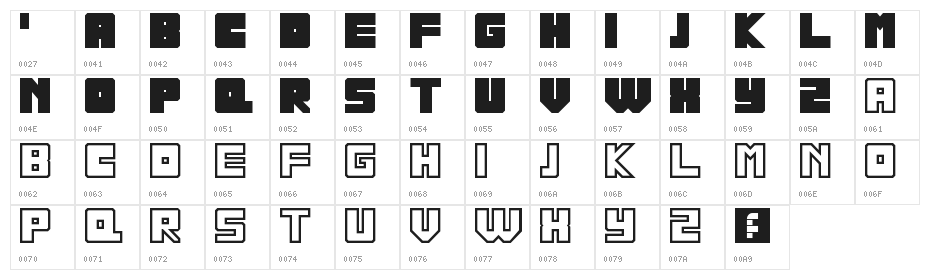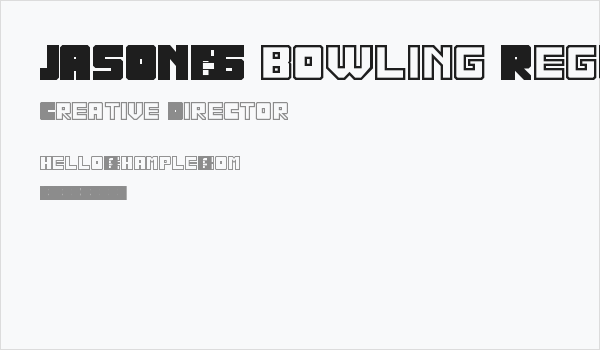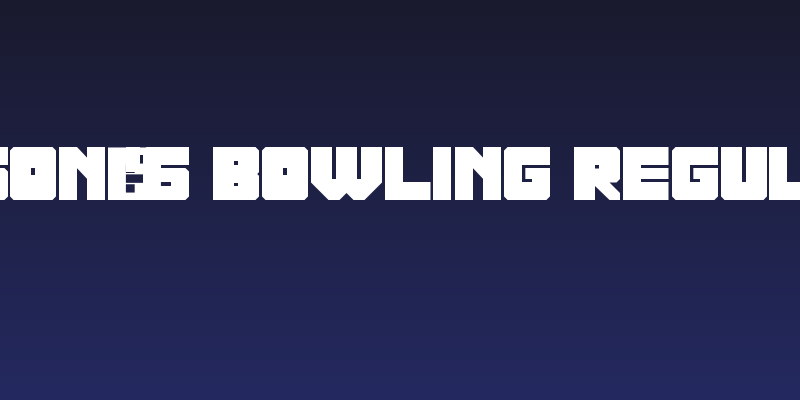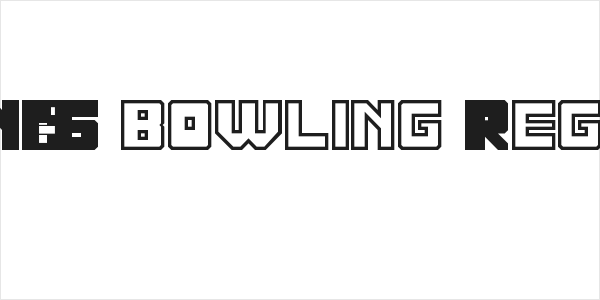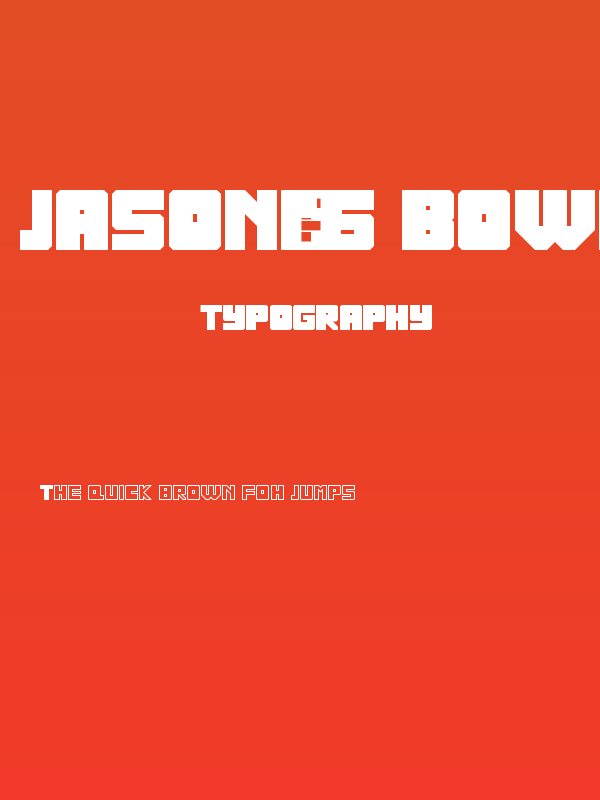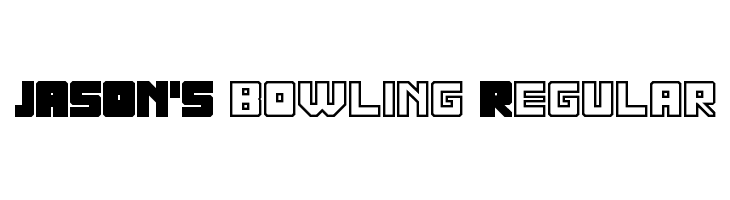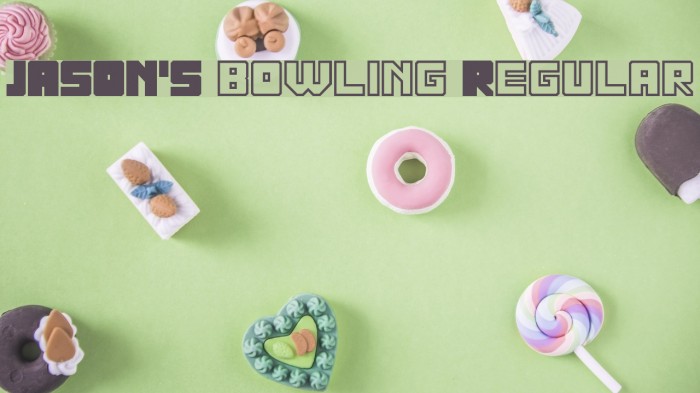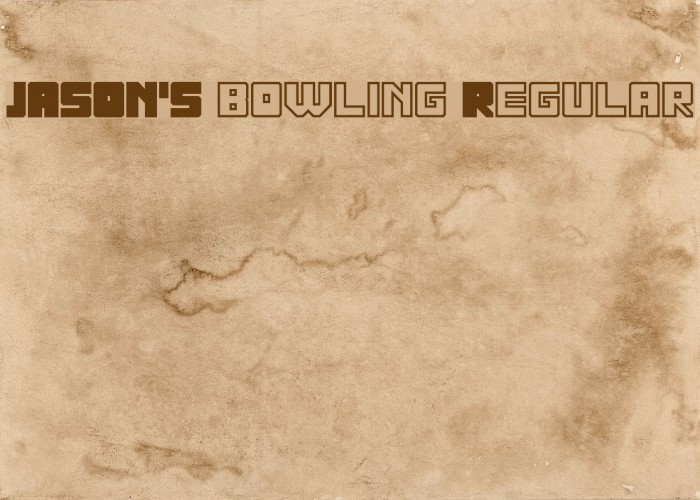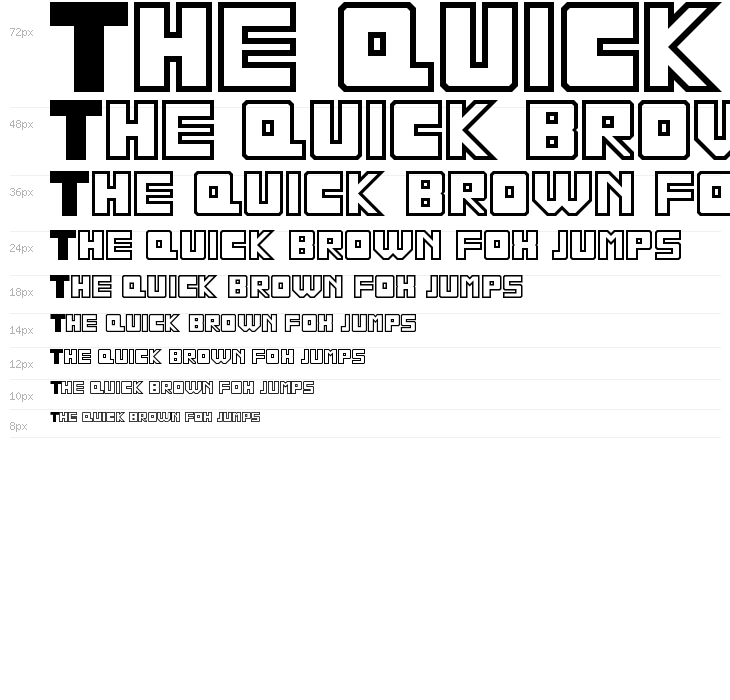
JASON'S bowling Regular Font
JASON'S bowling Regular Description
This font features a bold, geometric design with a strong presence. The uppercase letters are blocky and robust, giving a sense of stability and strength. The outline version of the font adds a modern touch, creating a dynamic contrast between solid and hollow forms. The characters are evenly spaced, ensuring readability while maintaining a compact appearance. The font's style is reminiscent of retro arcade games or sports branding, making it ideal for projects that require a bold and impactful visual statement.
| Overall Style | Retro, Bold |
| Proposed Projects | Ideal for sports branding, retro-themed designs, video game graphics, and bold headlines. |